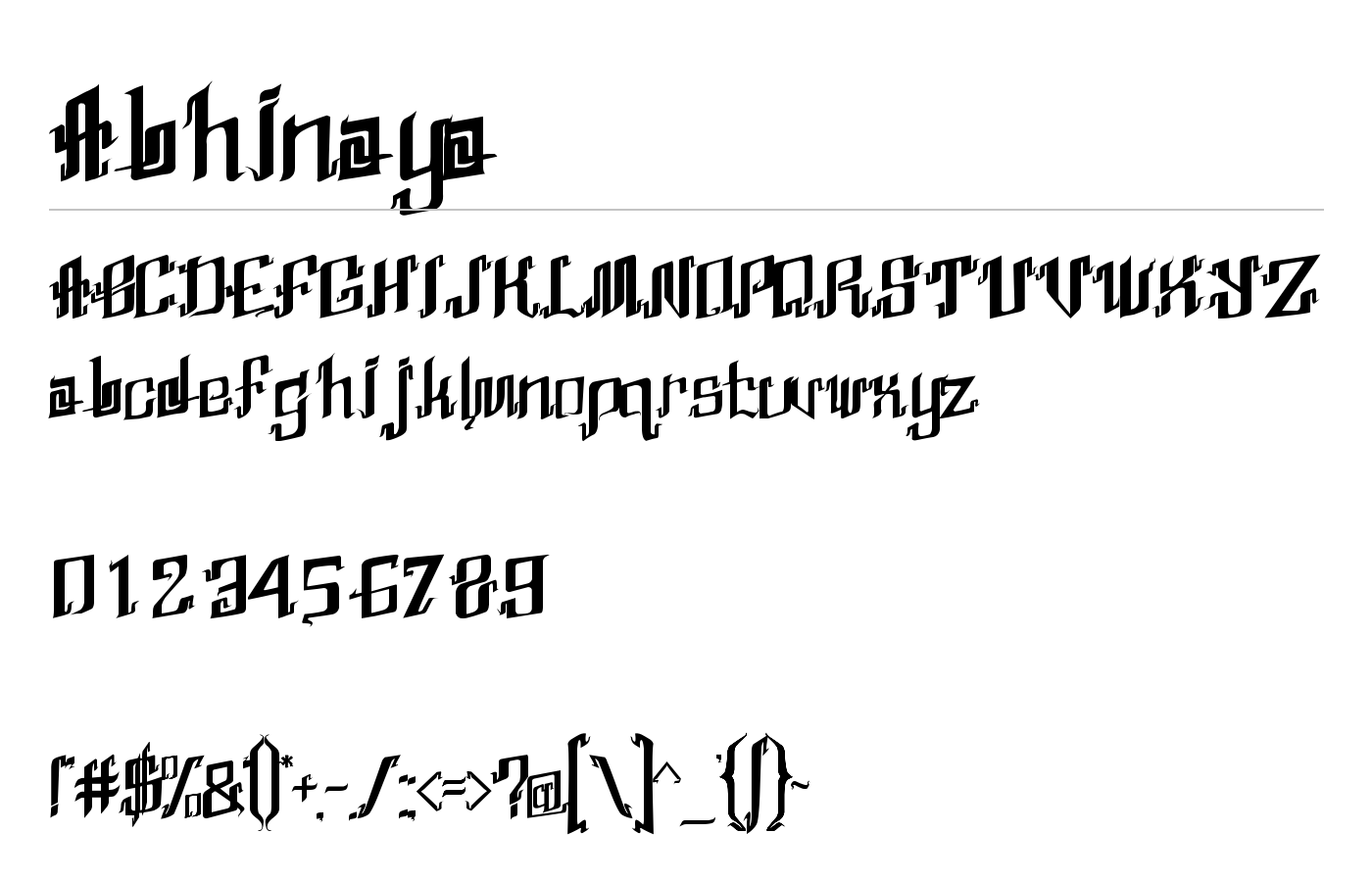
Abhinaya is a striking blackletter-inspired display font with sharp, angular strokes and condensed letterforms that create a dramatic, gothic feel. Its high contrast between thick and thin lines, along with stylized serifs and decorative details, make it ideal for bold headlines, logos, and creative projects seeking a vintage yet edgy vibe. This font works best where attention-grabbing, artistic expression is desired, such as in posters, branding, or editorial designs.
| Designer | Agus Setiawan W |